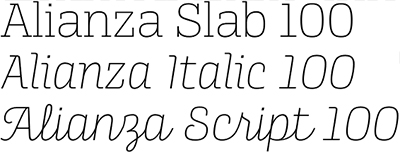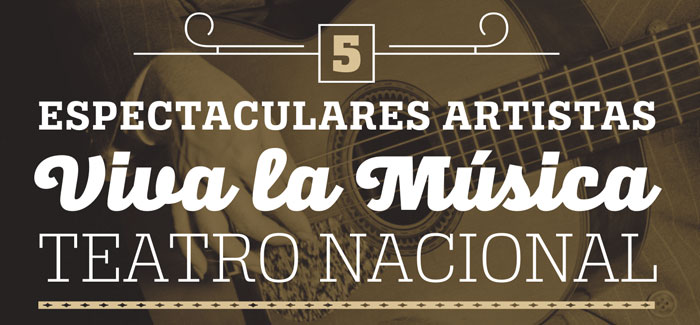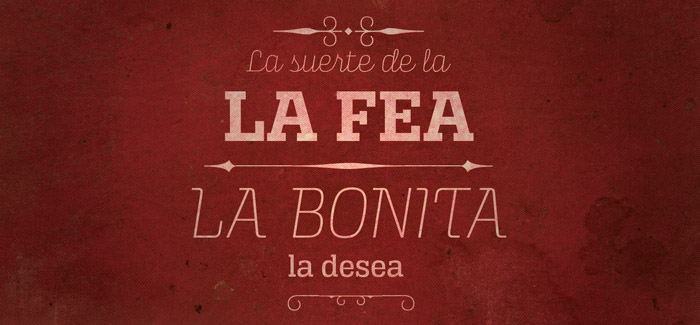
Alianza font
Alianza font is a complex typographic system in three different styles: Slab, Italic, and Script, with nine weights each one; plus three sets of ornamental fonts: Labels, Negative Labels, and Ornaments. Each style has three sets of figures: Proportional lining, tabular lining and old style. The three styles could be mixed in a single piece without lacking the uniformity, achieving integral type design.
Designers: Manuel Eduardo Corradine, Sergio Ramírez
Publisher: Corradine Fonts